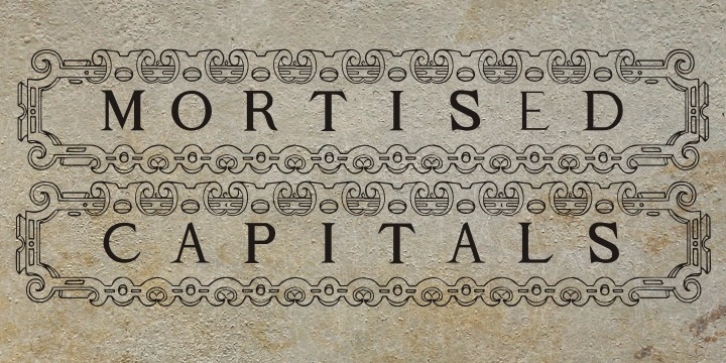
Publisher: Intellecta Design
A decorative display font featuring many different styles of flourishes and ornaments. Great for a vintage antique feel.